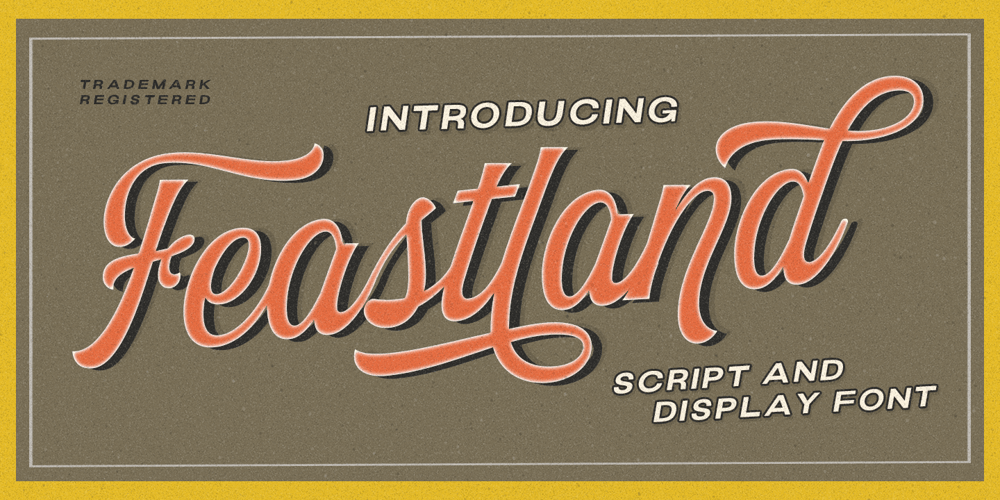
Feastland Font Family was designed by Hendry Juanda and published by Letterhend. Feastland contains 3 styles and family package options. Garland is a font duo with classic display font with Vintage Script. You can play around to fit the form using between typeface. This font perfectly made to be applied especially in logo, and the other various formal forms such as invitations, labels, logos, magazines, books, greeting / wedding cards, packaging, fashion, make up, stationery, novels, labels or any type of advertising purpose.Features : Uppercase & lowercase Numbers and punctuation Alternates & Ligatures Multilingual PUA encoded We highly recommend using a program that supports OpenType features and Glyphs panels like many of Adobe apps and Corel Draw, so you can see and access all Glyph variations.Tags